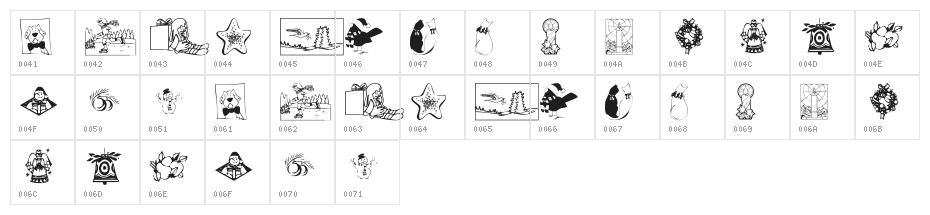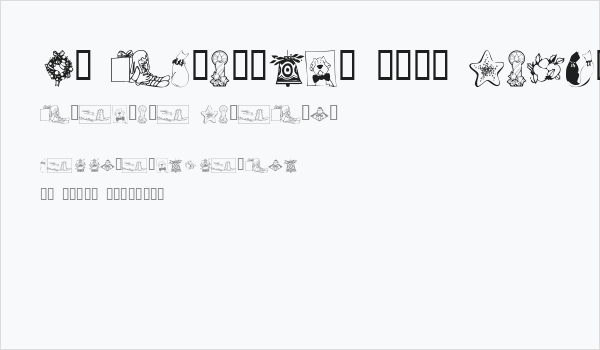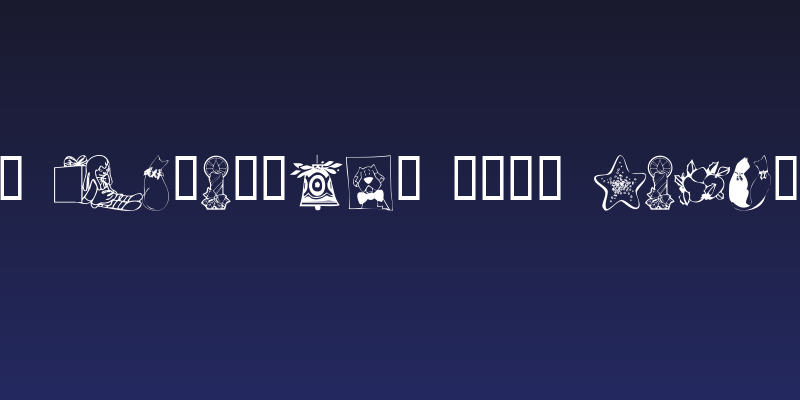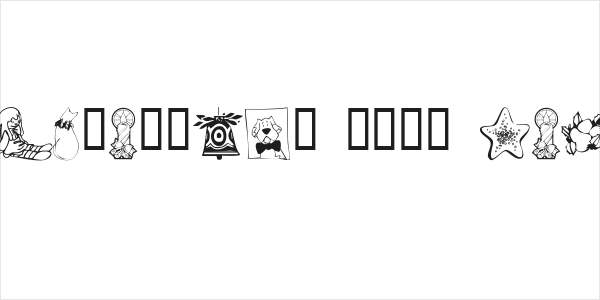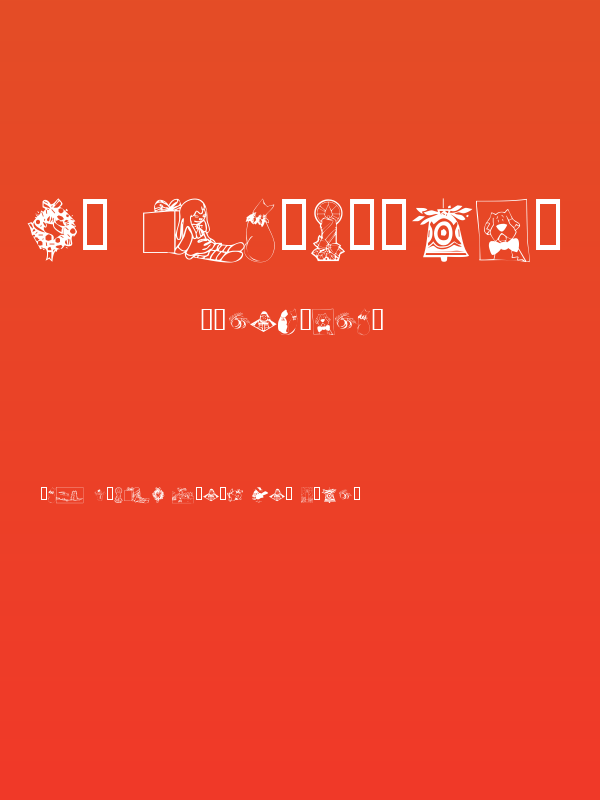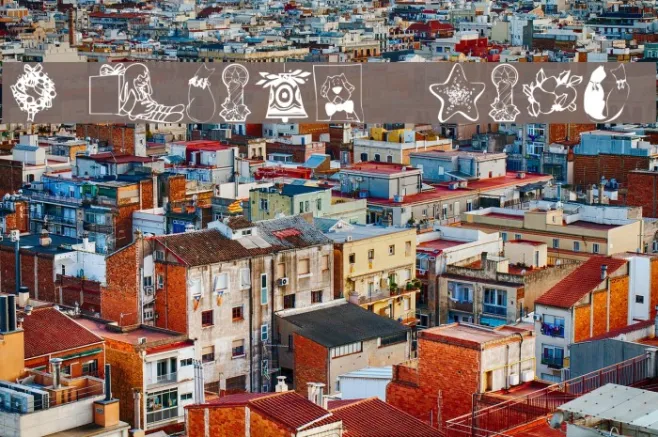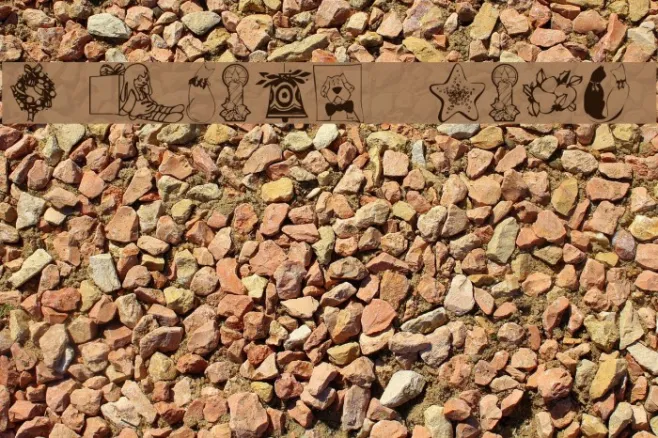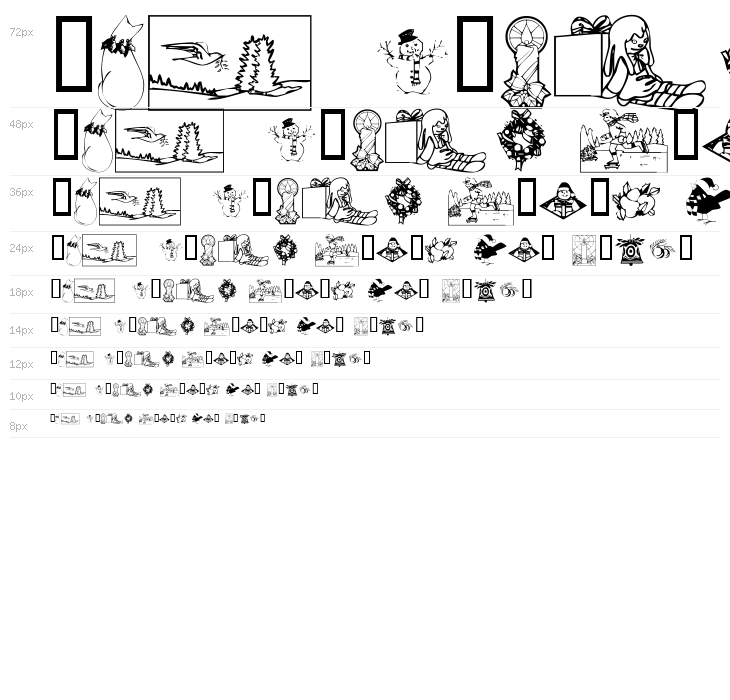
KR Christmas 2002 Dings 5 Font
KR Christmas 2002 Dings 5 Description
This collection features a variety of Christmas-themed dingbats, showcasing festive illustrations such as snowmen, bells, stars, and holiday scenes. Each character is intricately designed to capture the essence of the holiday season, making it perfect for adding a decorative touch to any project. The designs are bold and clear, ensuring they stand out whether used in print or digital formats. The style is playful and whimsical, embodying the joy and spirit of Christmas.
| Use Case | Logos, Headlines, Decorative elements |
| Proposed Projects | Ideal for holiday cards, festive invitations, seasonal decorations, and Christmas-themed digital content. |